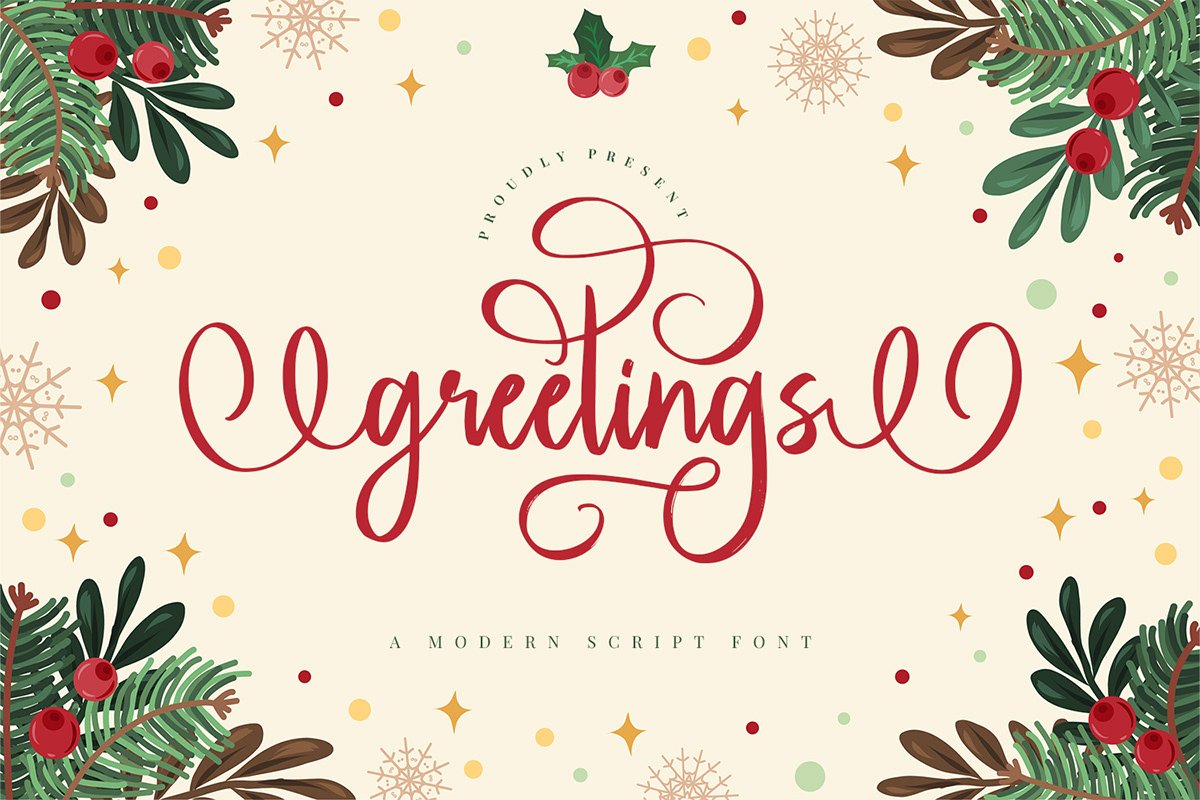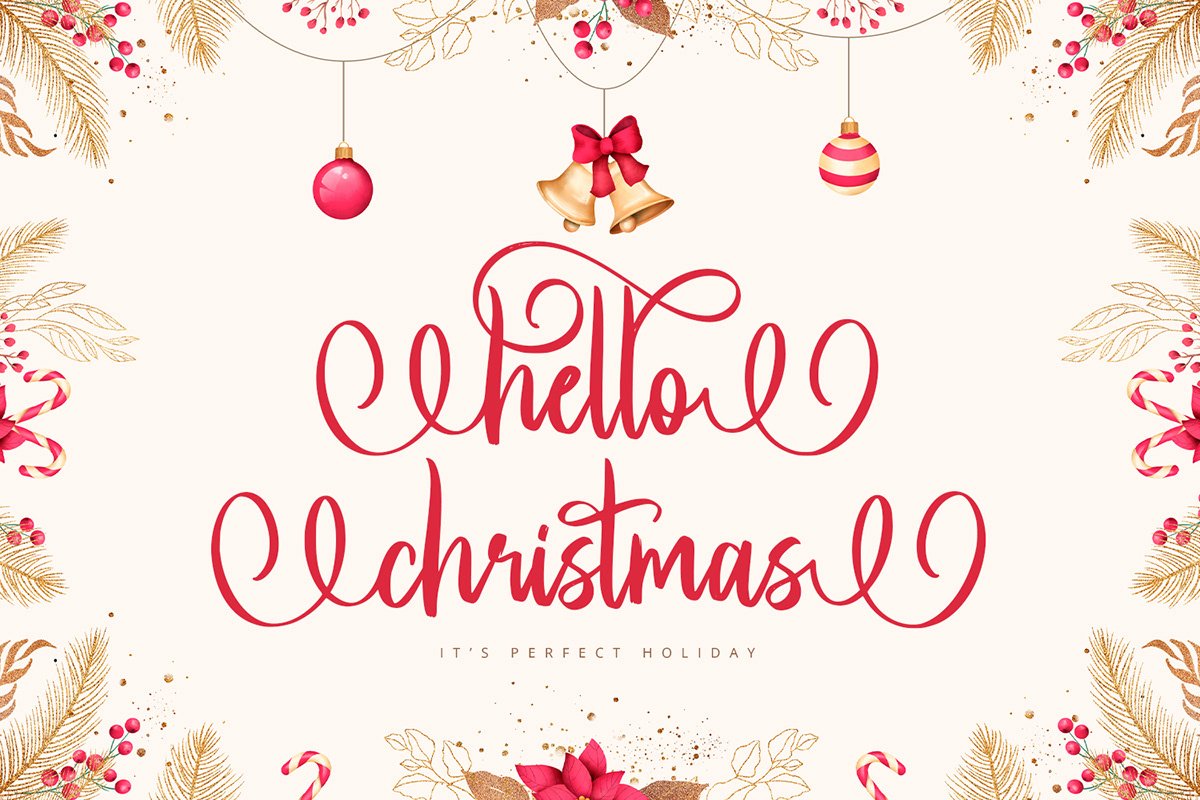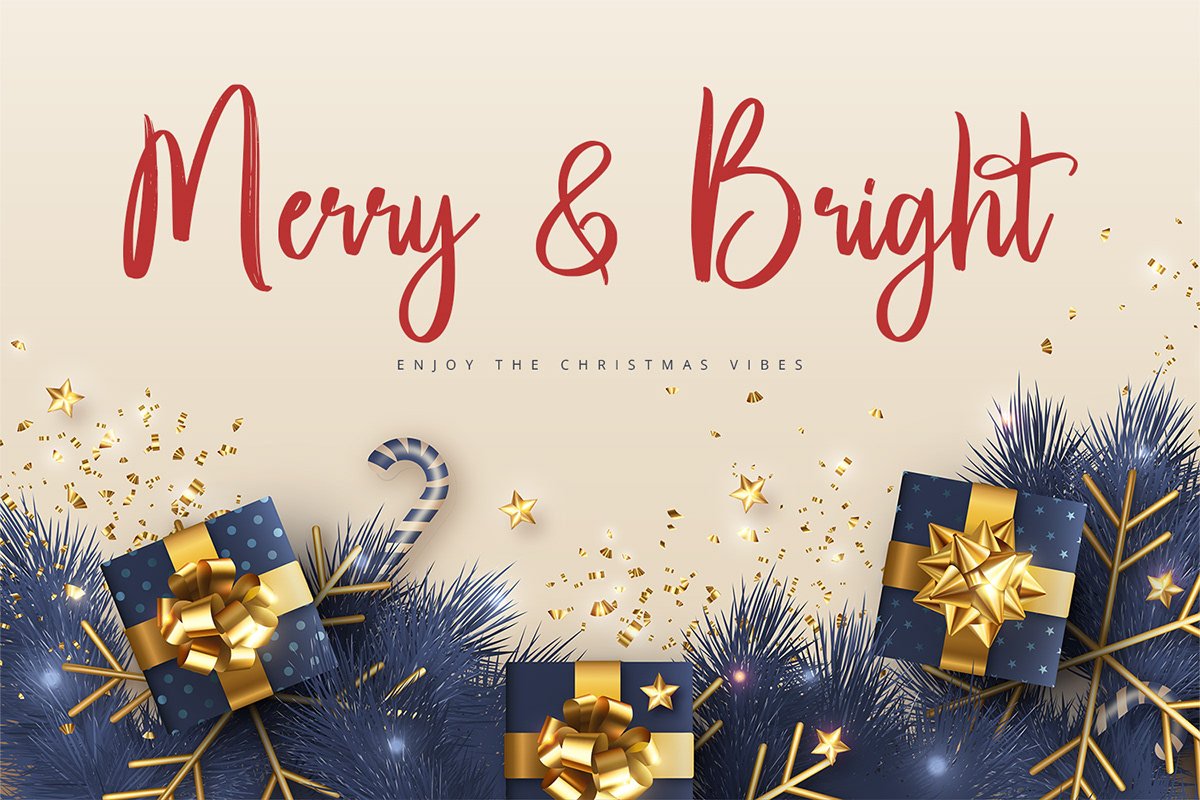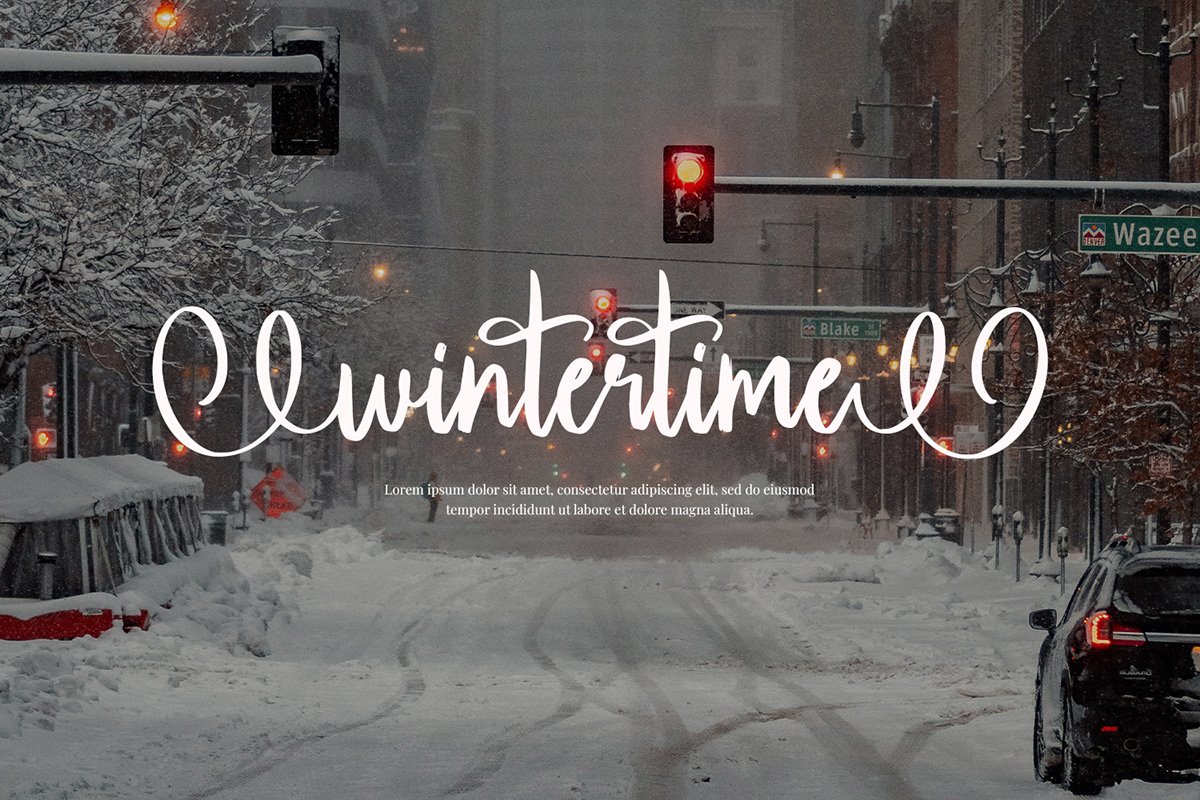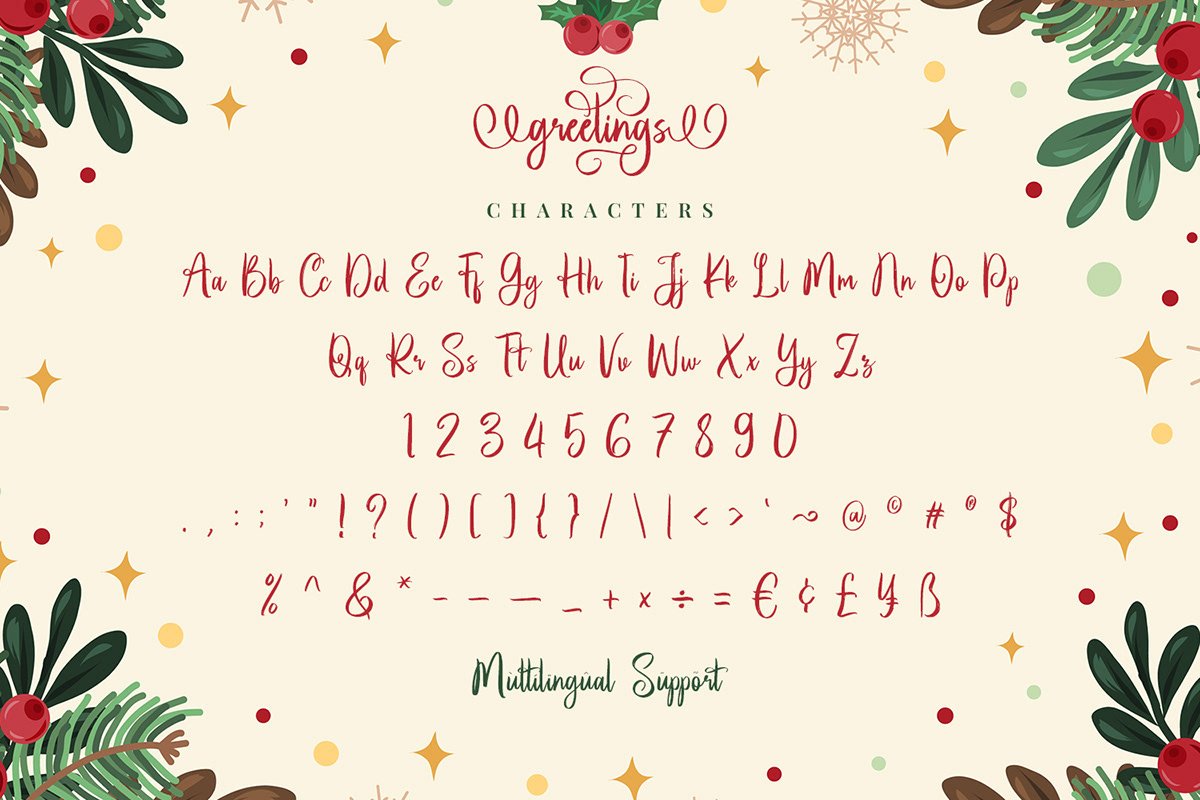
Greetings – Modern Script Font is here! It is a script font with elegant and unique style. It will be perfectly used for Branding, Logo Design, Lettering, Logotype, Clothing, Poster, magazine, packaging, posters, shopping bags, t-shirts, book covers, photography, special events and other design project.
Greetings